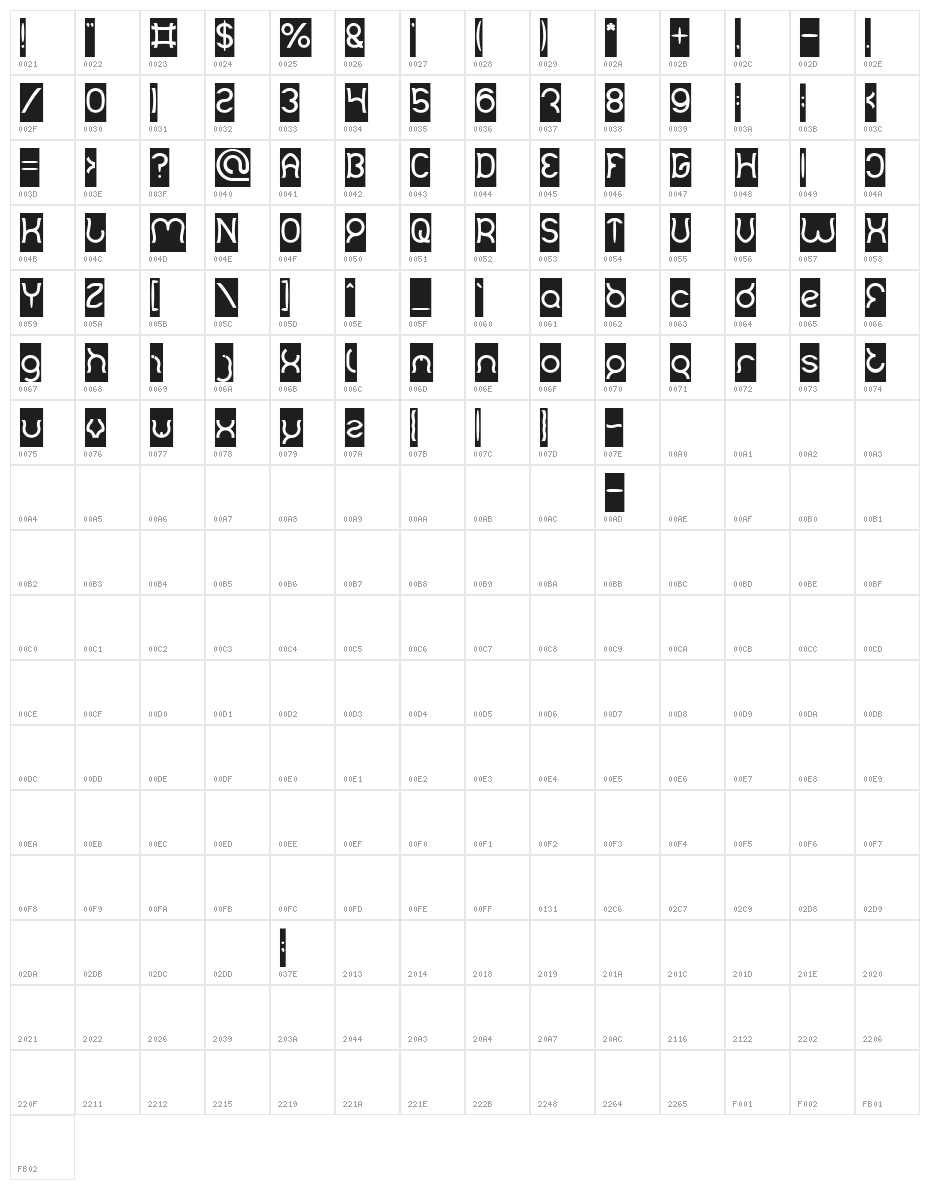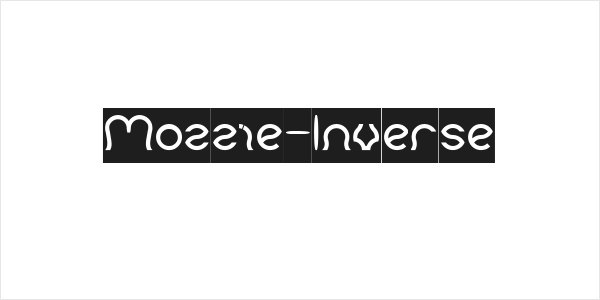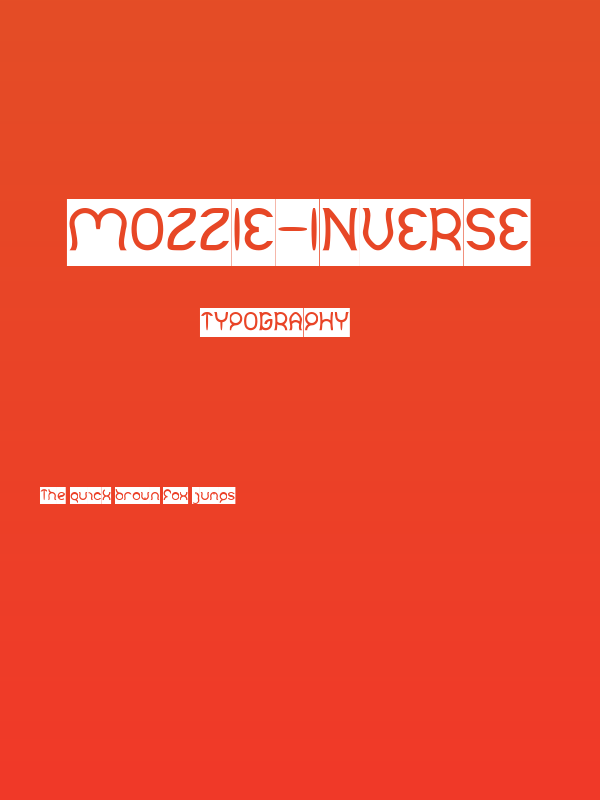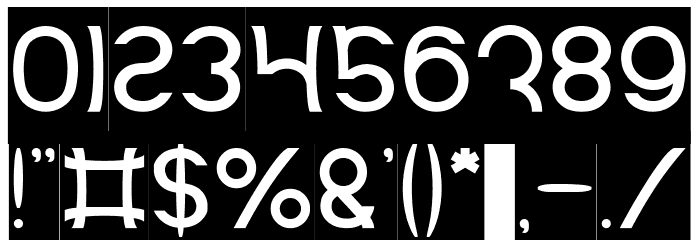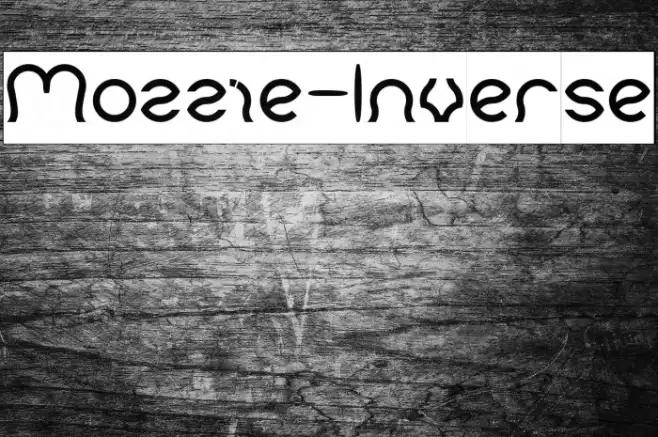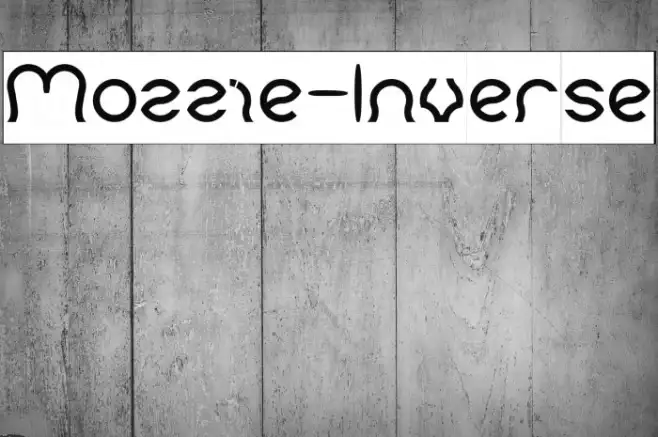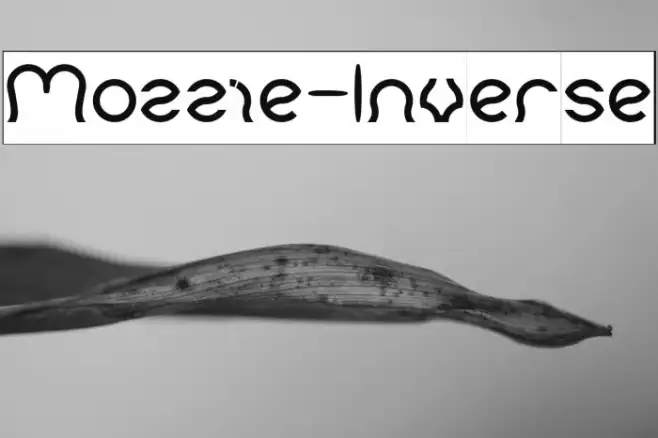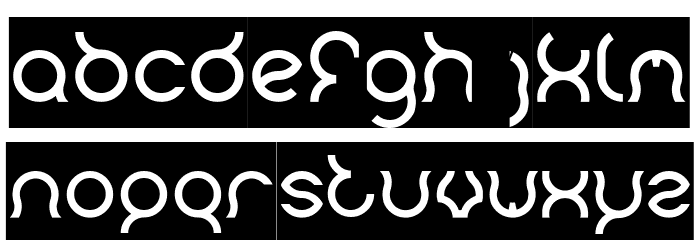
Mozzie-Inverse Font
Mozzie-Inverse Description
This font features a unique and artistic design with a playful and decorative style. The characters are crafted with a mix of curves and sharp angles, creating a dynamic and eye-catching appearance. The uppercase letters have a bold presence, while the lowercase letters maintain a consistent style with a slightly more delicate touch. The numerals are distinct and follow the same creative theme, making them stand out. Special characters are included, adding versatility to the font. Overall, this font is perfect for projects that require a touch of creativity and flair.